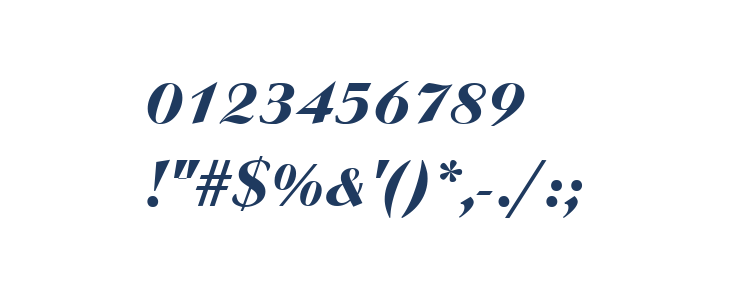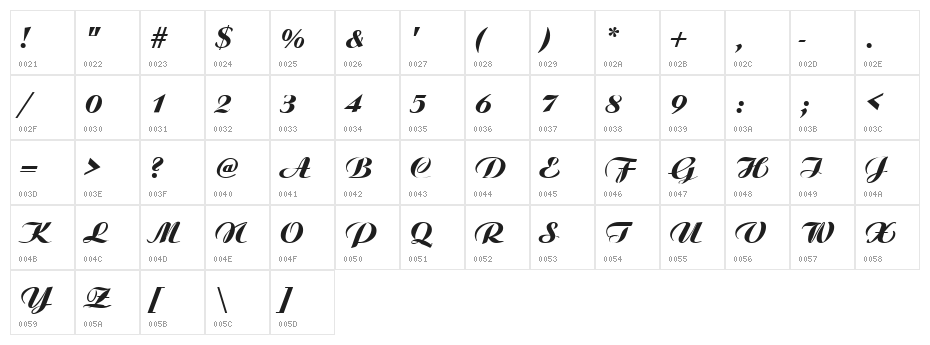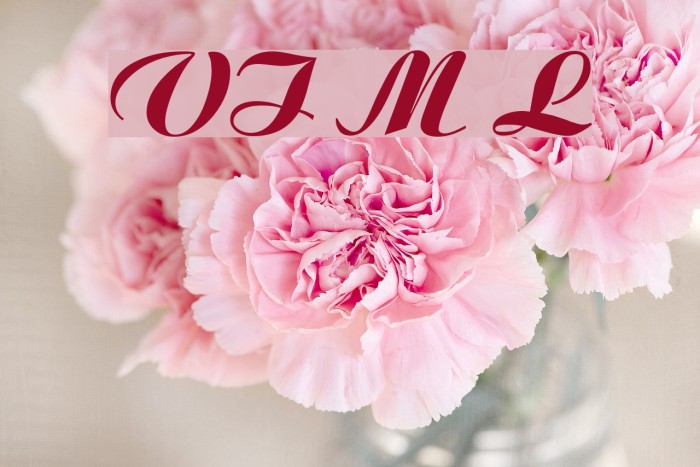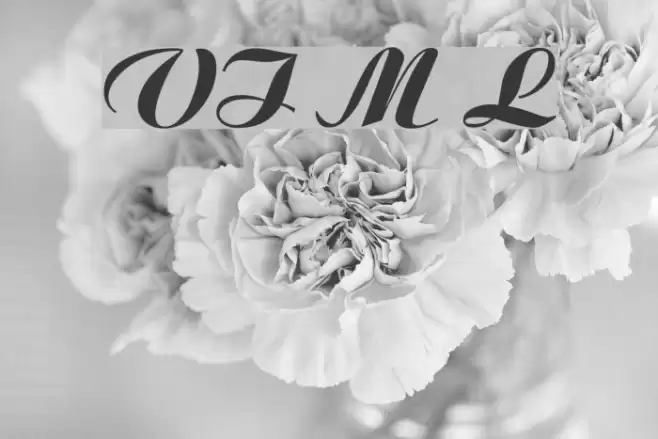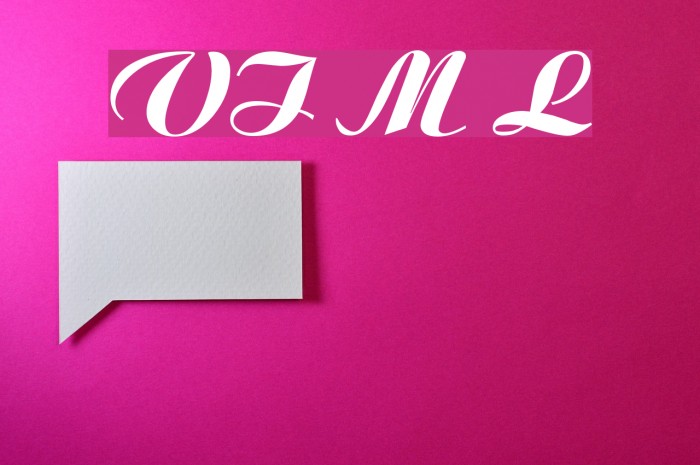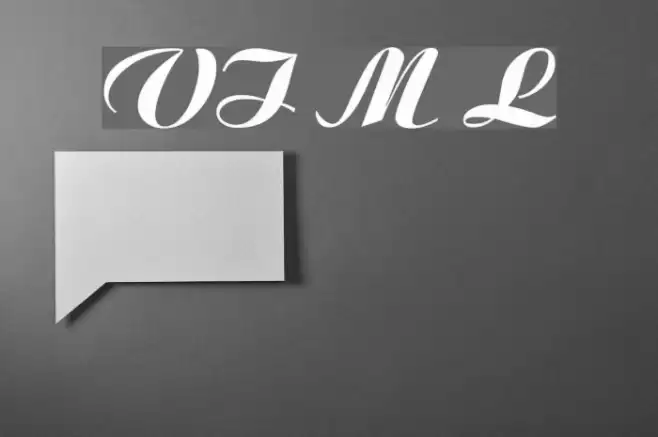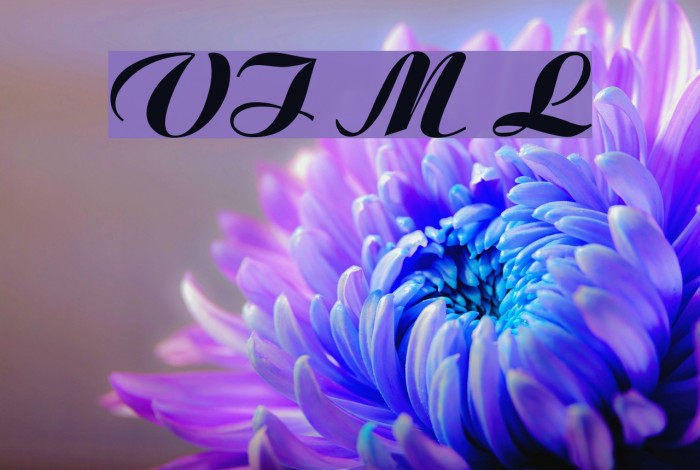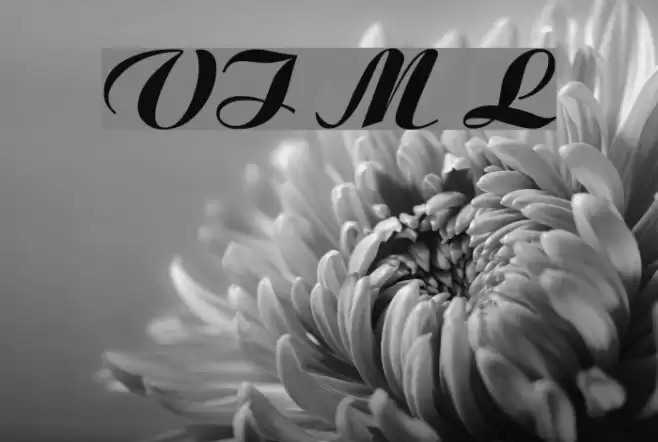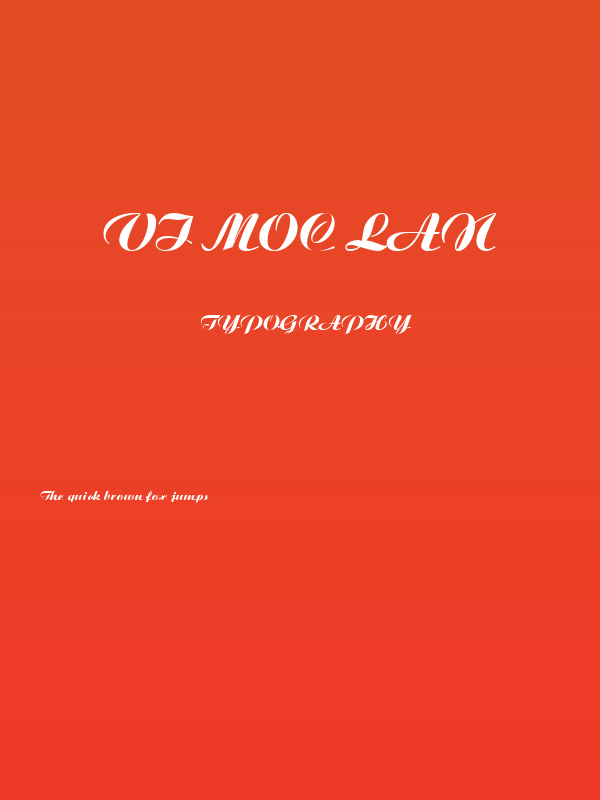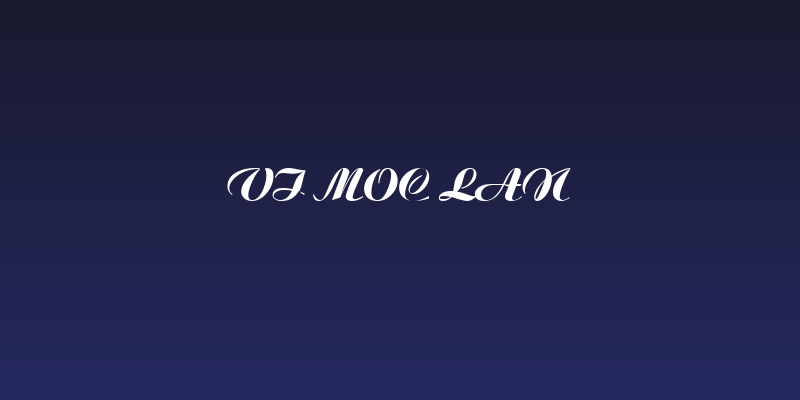
VI Moc Lan Font
VI Moc Lan Description
This font exudes elegance and sophistication with its flowing, cursive style. The characters are designed with a high contrast between thick and thin strokes, giving it a dynamic and lively appearance. The uppercase letters are particularly ornate, featuring sweeping curves and flourishes that add a touch of grandeur. The lowercase letters maintain a consistent style, with smooth connections between characters that enhance readability. The numerals are bold and clear, matching the overall aesthetic of the font. Special characters are thoughtfully integrated, maintaining the decorative theme. This font is ideal for projects that require a touch of elegance and formality.
| Proposed Projects | Wedding invitations, luxury branding, elegant signage, formal event programs. |